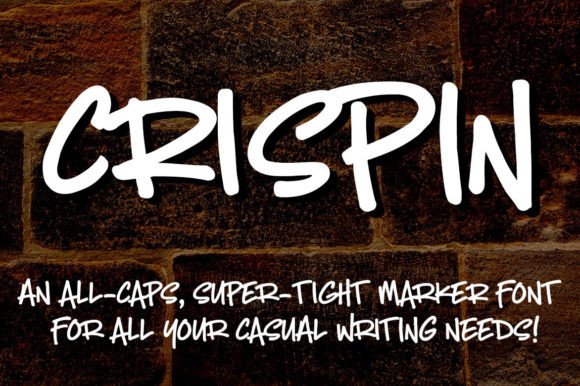
Introducing Crispin Font, the best font for English writing! Created by GeekMissy, this script font is perfect for users looking to add a touch of elegance and personality to their projects.
With Crispin, you'll get the best of both worlds. It's a double-caps font, featuring one set of capital letters mapped to the uppercase and another set mapped to the lowercase. This unique feature allows you to add variety to double-letter words, giving them an authentic hand-lettered appearance.
The tight spacing and thick strokes of Crispin make it feel like your project was written with a heavy marker. The result? A visually captivating and impactful design that stands out from the crowd. Whether you're crafting invitations, logos, or any other creative project, Crispin is the perfect choice.
But that's not all! As a bonus, we're including Crispin Light Rough font. This font is made from the original imported letters, offering a slightly lighter and rougher look. It's still meticulously spaced and kerned, ensuring a seamless and professional finish.
We understand the importance of language support, which is why Crispin comes with over 200 accented characters in each file. No matter which language you're working with, you'll find the right characters to express yourself effortlessly.